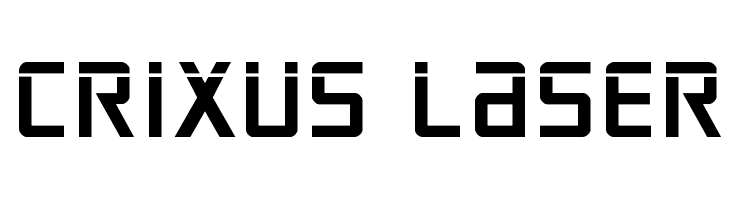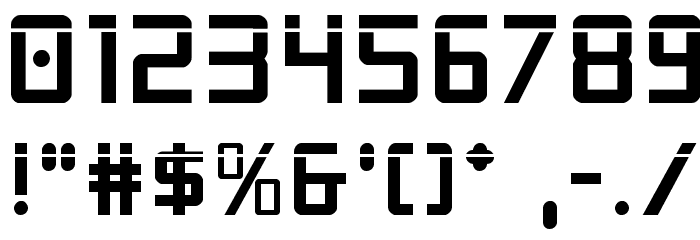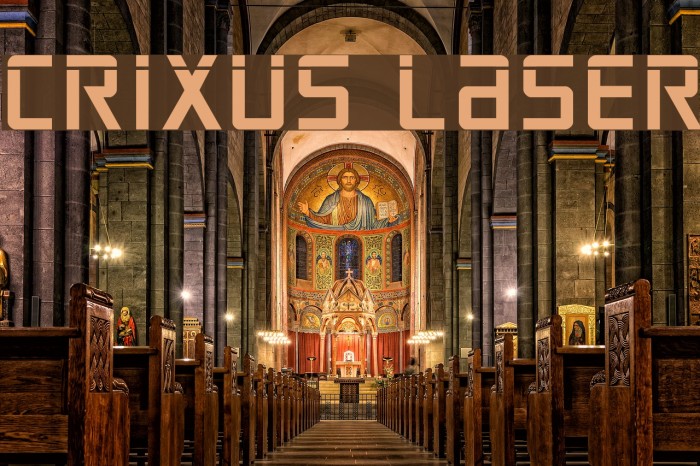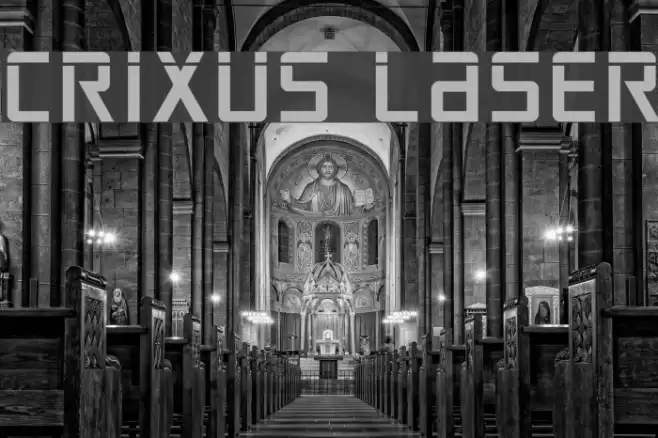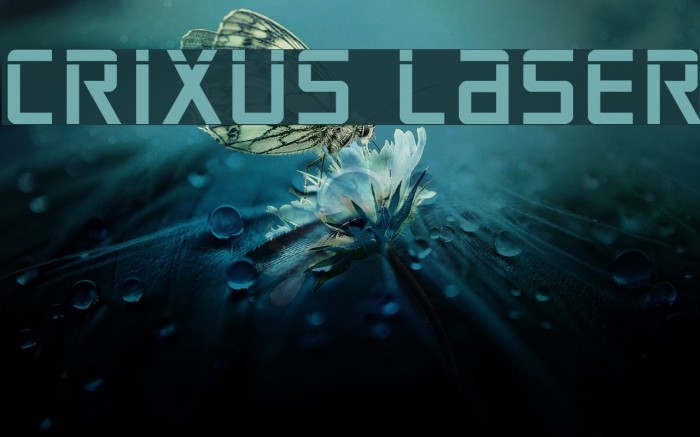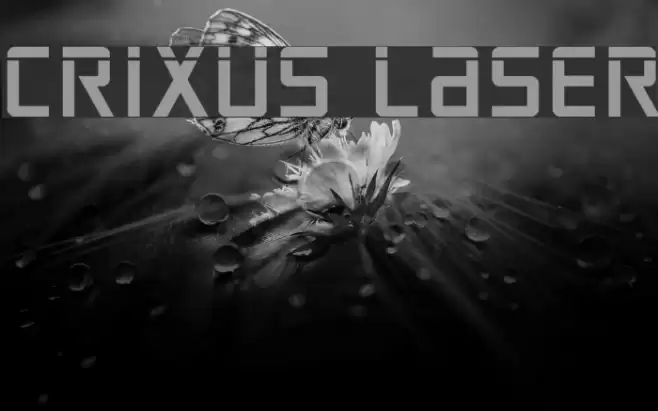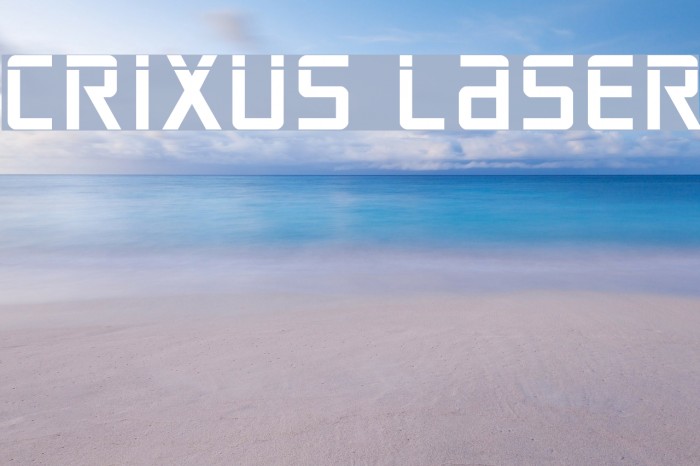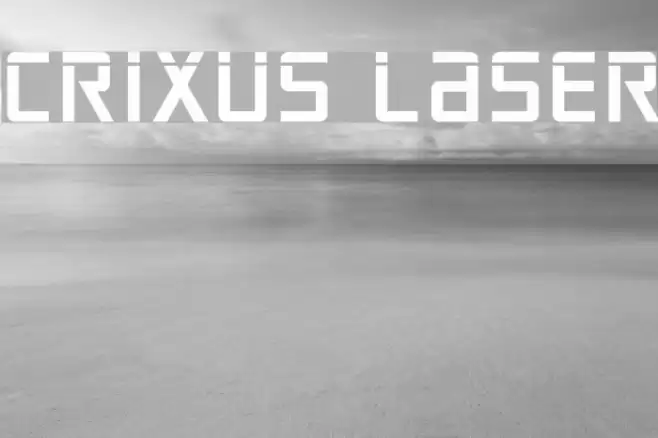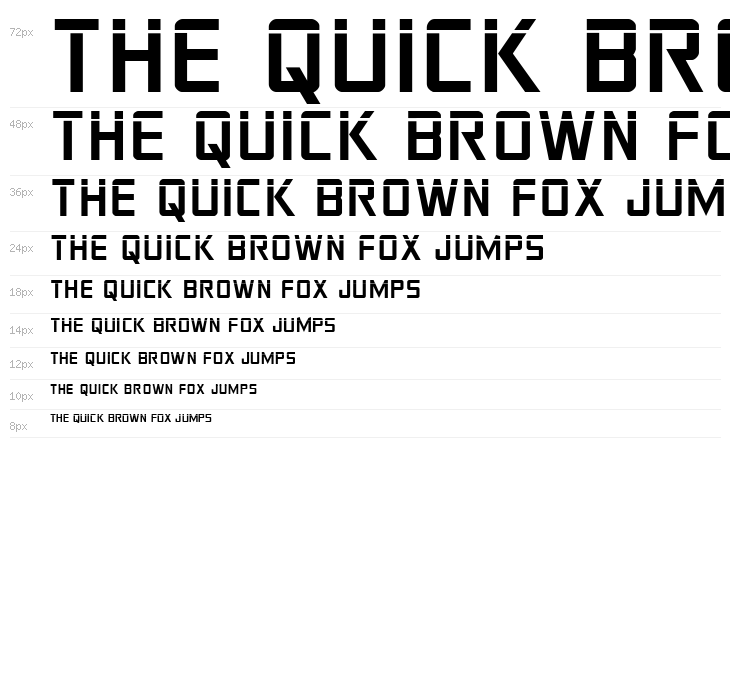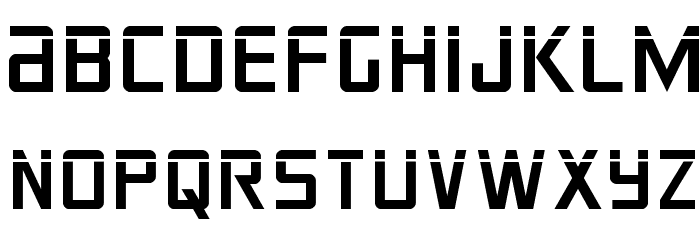
Crixus Laser Font
Crixus Laser Description
This font features a futuristic and geometric design, characterized by its bold and angular letterforms. The uppercase and lowercase letters share a consistent style, with sharp edges and a uniform stroke width that gives it a strong, impactful appearance. The numerals and special characters maintain this cohesive look, making it suitable for digital and modern themes. Its distinct, blocky structure is reminiscent of sci-fi aesthetics, making it ideal for projects that require a tech-forward or avant-garde feel. The font's design ensures readability while maintaining a unique visual appeal.
| Proposed Projects | Ideal for sci-fi themed designs, tech branding, video game interfaces, and modern posters. |